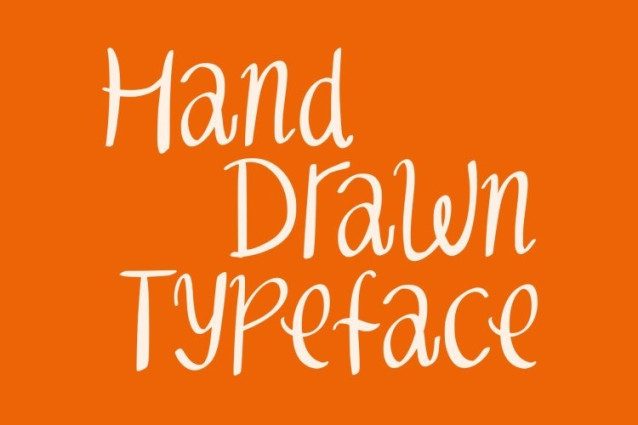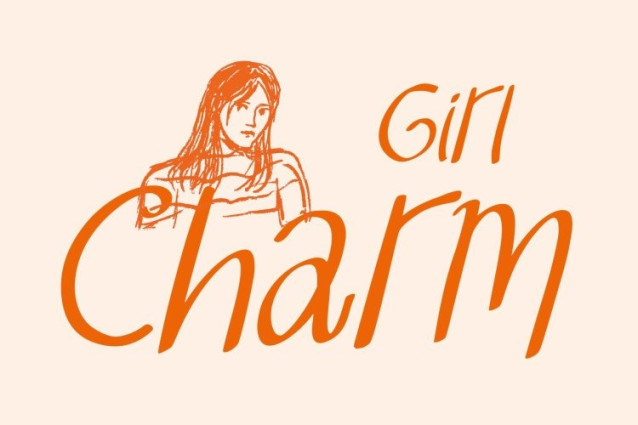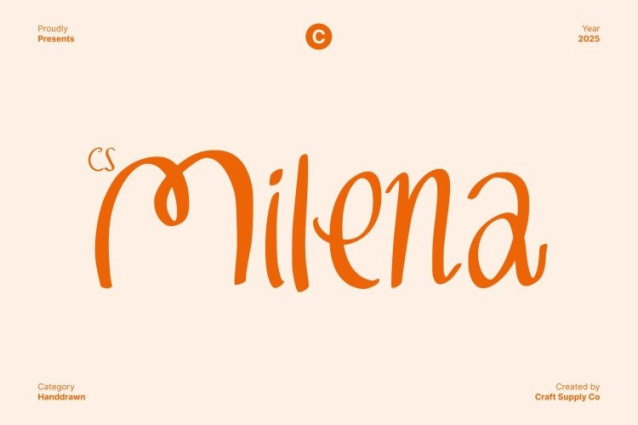
CS Milena Font
CS Milena Font This is a beautifully crafted handwritten font that merges the clarity of sans serif letterforms with the expressive flow of script handwriting. This unique combination creates a versatile and stylish typeface that feels personal, warm, and effortlessly elegant.
Handwritten Beauty for Authentic, Emotional Design
With its organic curves and naturally balanced shapes, this font captures the essence of genuine handwriting. The font’s subtle imperfections and soft rhythm make it feel alive and expressive, adding emotional depth to any project. Whether you’re designing heartfelt messages, cozy branding, or artistic layouts, this font’s handwritten touch elevates every composition with authentic character.
Perfect for Branding, Invitations, and Design Packs
This font shines in design environments that require warmth and approachability. From personal branding to social media aesthetics, wedding invitations, stationery sets, and design bundles, this font offers a complete toolkit that enhances both modern and handcrafted visual styles.
Versatile, Stylish, and Ready to Inspire Creativity
Designed with creatives in mind, this font adapts beautifully to a wide range of applications. Mix its styles for dynamic typographic layouts, use its script for standout signatures, or rely on its sans serif for clarity and balance. No matter how you use it, this font brings a harmonious blend of whimsy, elegance, and modern charm.